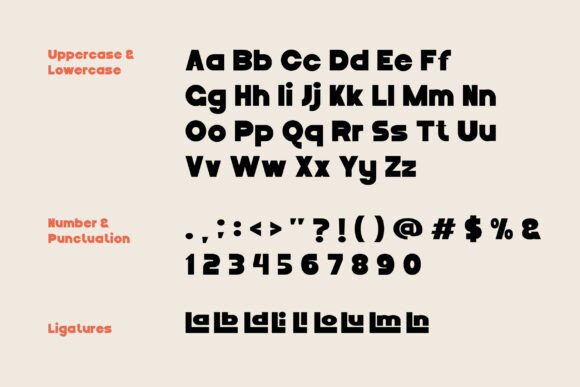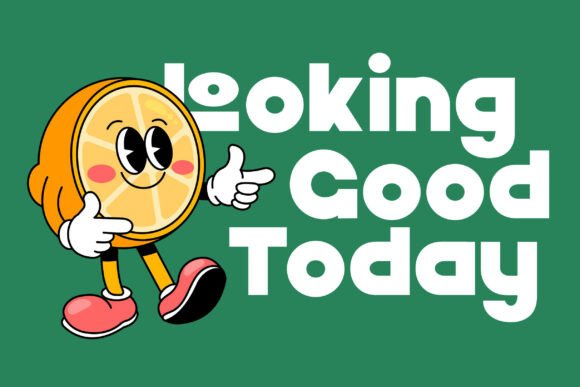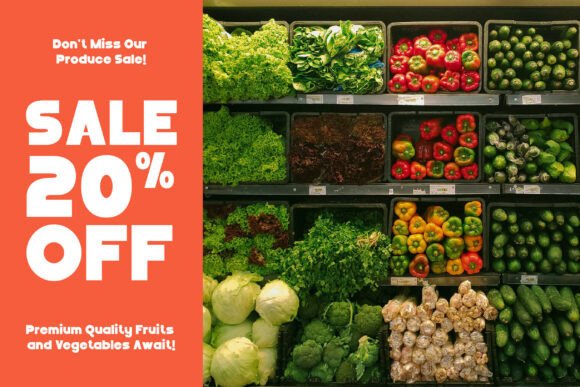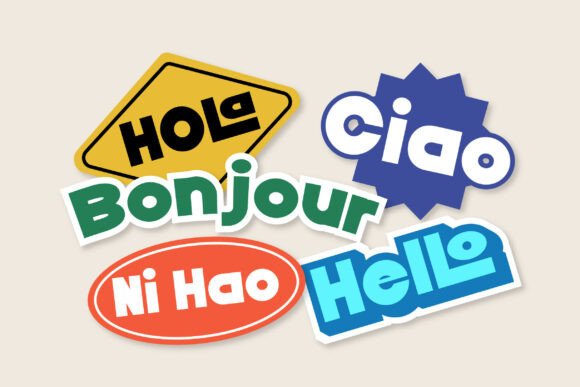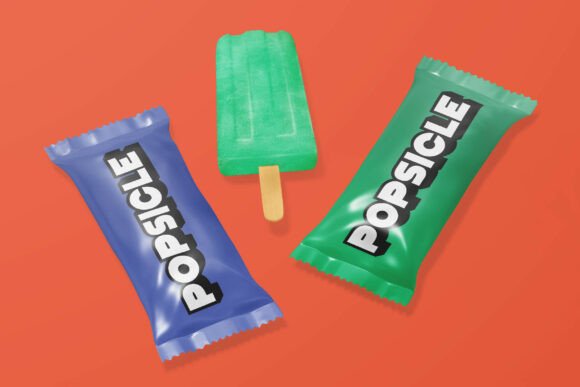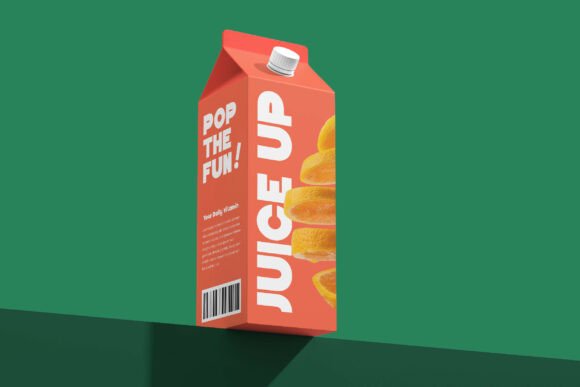
Introduction to Lalalili Font Font
Fonts play a crucial role in design, and the Lalalili Font font is a typeface that brings both character and versatility to any project. Whether you’re working on a branding project, a website, or a print design, the Lalalili Font font offers a unique style that can elevate your work.
Lalalili is a bold sans serif display font with a playful attitude and distinctive ligature combinations.
Designed to grab attention, its geometric shapes and whimsical energy make it ideal for childrenβs projects, creative branding, poster headlines, and bold packaging Lalalili stands out with strong personality while staying readable and versatile, offering a perfect balance of fun and functionality in every design.
Key Features of Lalalili Font Font
Why Choose Lalalili Font Font?
The Lalalili Font font is more than just a typeface β it’s a design tool that helps you communicate your message with style and clarity. Its unique character set and versatile design make it suitable for a wide range of applications, from elegant invitations to bold headlines.
With its carefully crafted letterforms and balanced proportions, the Lalalili Font font ensures readability and visual appeal across all mediums.
What makes Lalalili Font font special?
The Lalalili Font font stands out with its unique design, exceptional readability, and versatility across various design applications.